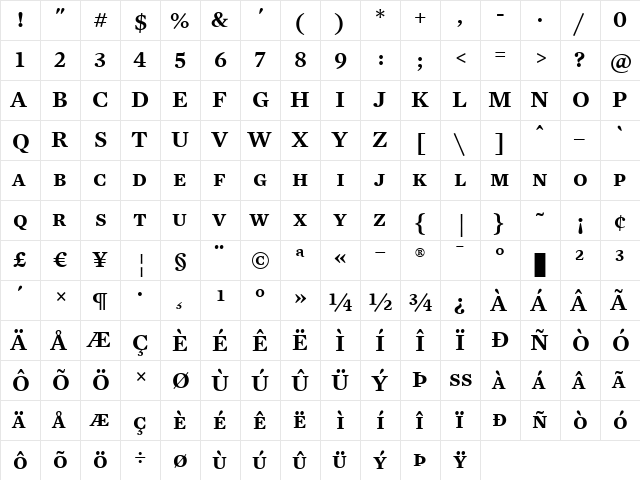
Mercury Text G1 SemiBold
Design Context for Mercury Text G1 Typeface
Mercury Text G1 offers clean, dependable letterforms without strong stylistic allegiance, making it a practical choice for designers who need flexibility. Its bold stroke weight gives it real presence on the page.